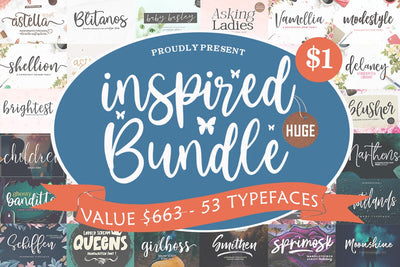
The Inspired Huge Bundle
The Inspired Huge Bundle, 55 Wonderfully designed typefaces are here to update your font library!
In this bundle, you will discover the classic and the modern styles combined to make the perfect letters.
These professional resources are also sophisticated because every font has his own magic design. You can use them for pretty much everything like blog header, posters, wedding elements, t-shirt, apparel, cover books, business cards, greeting cards, branding, invitations and quotes and so on.